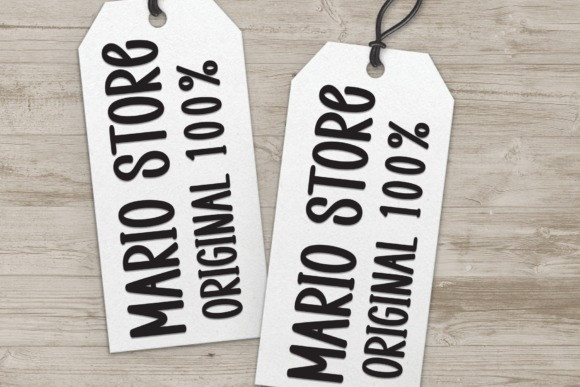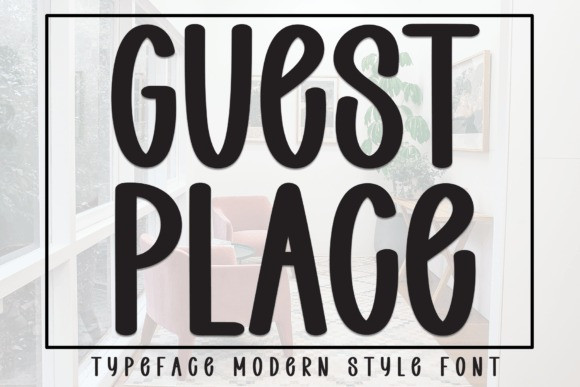
Guest Place Font
Guest Place Font is a sweet and friendly handwritten font. Fresh and casual, this font is ideal for writing wedding invitations, cards, or any other design that might need a lovely touch.